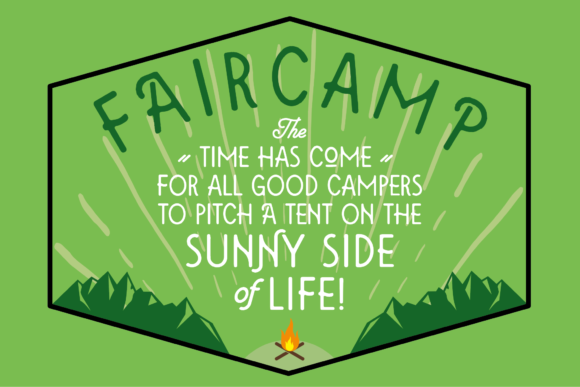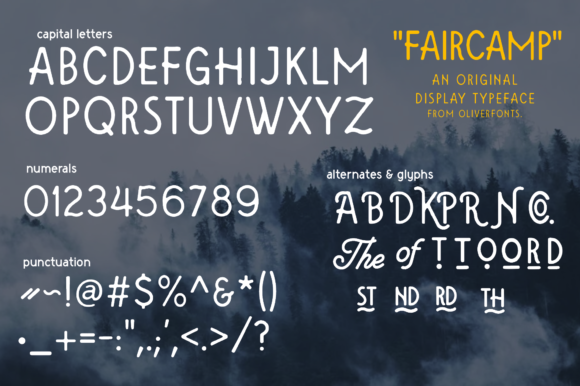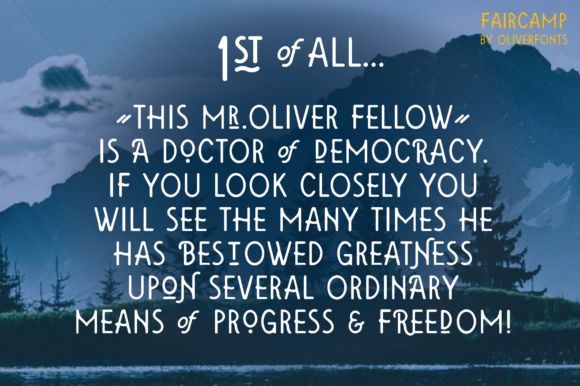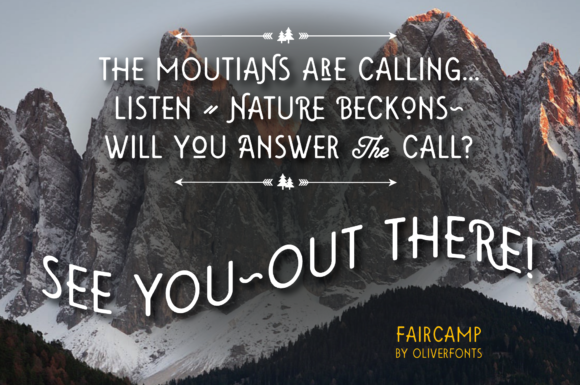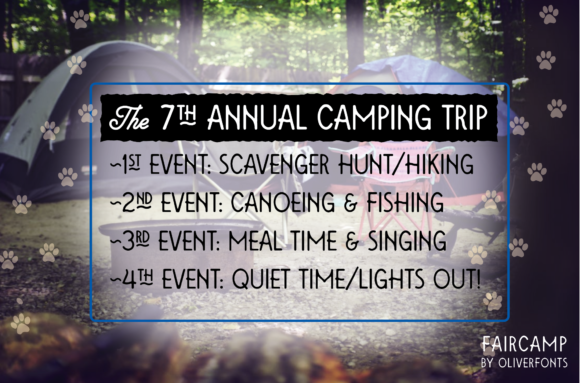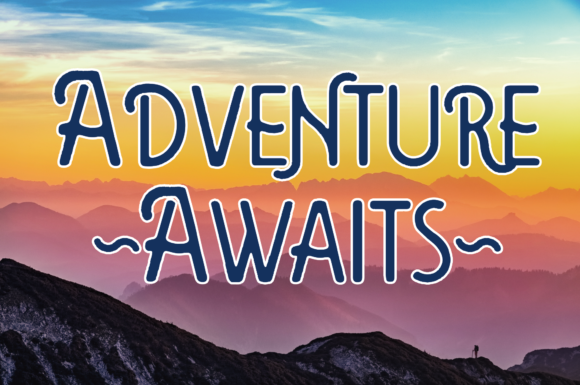
Introducing Faircamp Font: Elevate Your Designs with a Simple yet Striking Display Font
In the world of design, typography plays a crucial role in conveying messages, evoking emotions, and creating lasting impressions. For designers and crafters looking to add a touch of elegance and simplicity to their projects, Faircamp Font emerges as an excellent choice. This article delves into the features, benefits, and potential applications of Faircamp Font, a lettered display font that promises to make your creative ideas stand out.
What is Faircamp Font?
Faircamp Font is a beautifully crafted, simple, and neat lettered display font. Its design is characterized by clean lines, well-proportioned letterforms, and an overall aesthetic that exudes modernity and sophistication. Whether you’re working on a branding project, crafting a logo, designing a poster, or creating engaging social media content, Faircamp Font offers the versatility and style to elevate your work.
Key Features of Faircamp Font
- Simplicity and Elegance: The font’s simple design ensures that it remains elegant and uncluttered, making it perfect for projects where clarity and readability are paramount.
- Versatility: Faircamp Font can be used across various design projects, from digital content to print materials, due to its clear and distinct letterforms.
- Modern Aesthetic: With its contemporary design, Faircamp Font brings a fresh and modern feel to any project, ensuring it stands out in a crowded design landscape.
- Easy to Read: The neat and well-spaced lettering ensures that the font is easy to read, even at smaller sizes, making it ideal for a wide range of applications.
Benefits of Using Faircamp Font
Choosing Faircamp Font for your design projects comes with several benefits:
- Enhanced Visual Appeal: The font’s unique yet simple design can significantly enhance the visual appeal of your projects, making them more engaging to your audience.
- Brand Differentiation: In a market flooded with generic designs, Faircamp Font can help you create a distinctive brand identity that sets you apart from competitors.
- Customization: Experiment with different sizes, colors, and text effects to customize Faircamp Font according to your project’s requirements. Its versatility allows for a wide range of creative possibilities.
- Pairing with Other Fonts: For projects requiring multiple fonts, Faircamp Font pairs well with both serif and sans-serif fonts, offering flexibility in creating visually appealing typography.
Faircamp Font is a stylish, simple, and versatile lettered display font that can significantly enhance the visual appeal and impact of your design projects. Its modern aesthetic, combined with ease of use and readability, makes it an excellent choice for designers and crafters looking to create standout work. Whether you’re aiming to build a strong brand identity, craft compelling marketing materials, or simply add a touch of elegance to your creative projects, Faircamp Font is a valuable addition to your typography toolkit.
Embrace the simplicity and elegance of Faircamp Font, and watch your designs transform with a fresh, contemporary look that captures attention and communicates your message effectively.